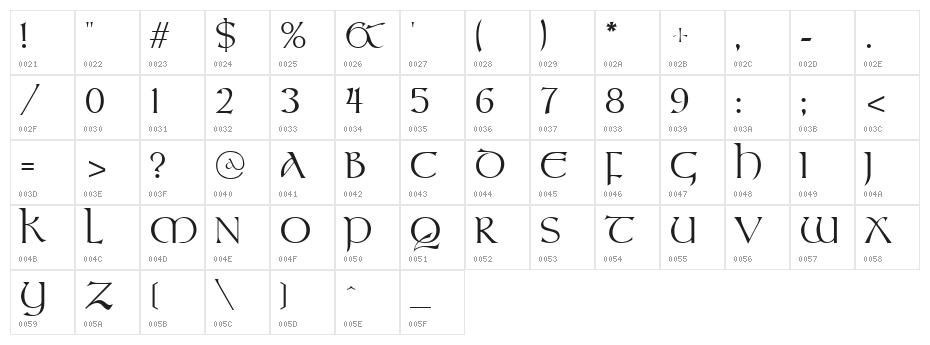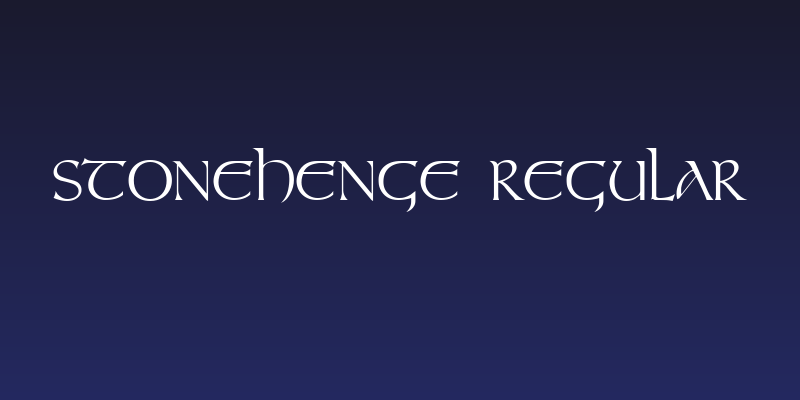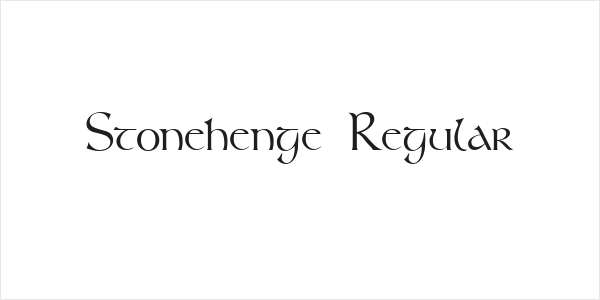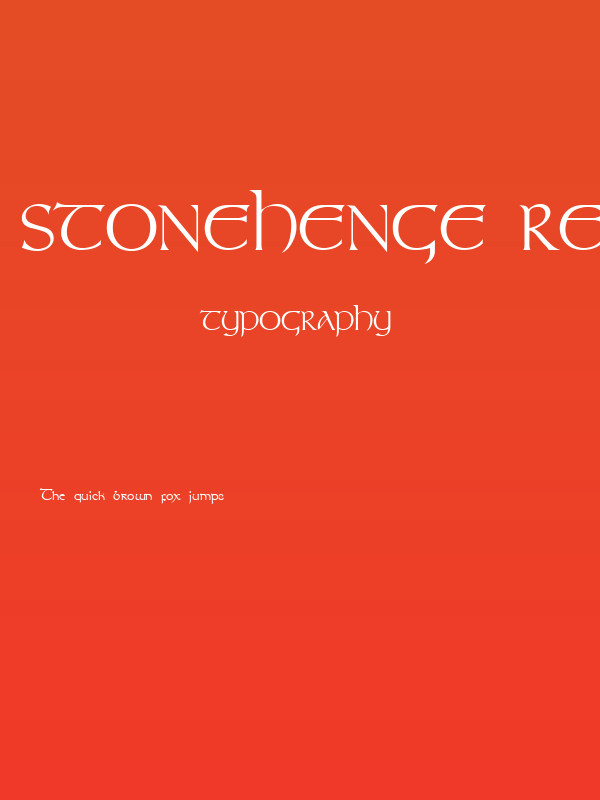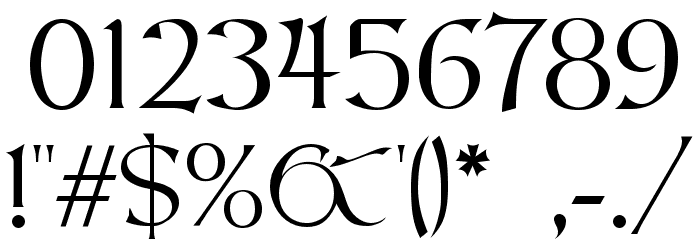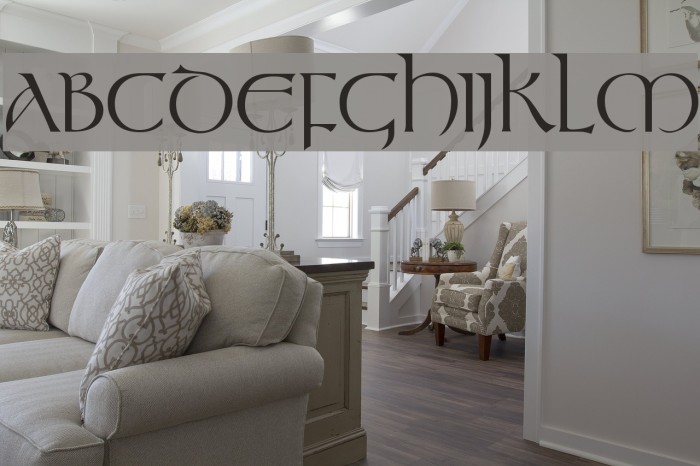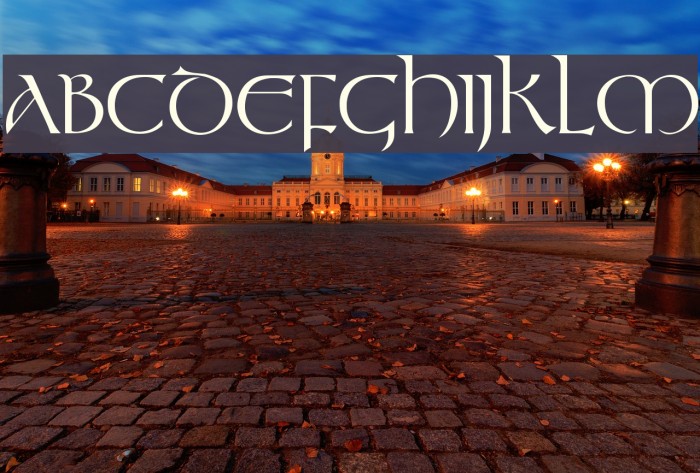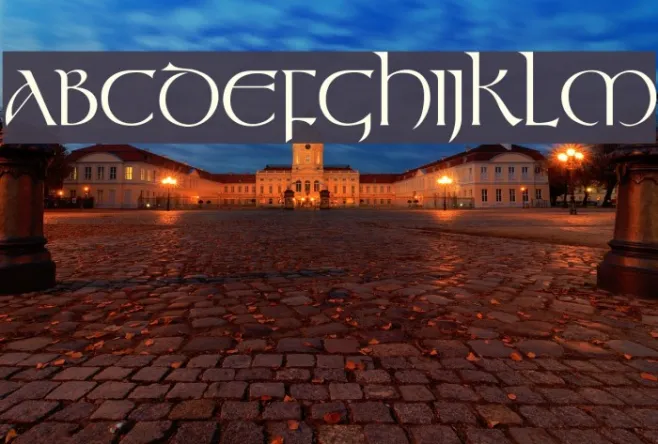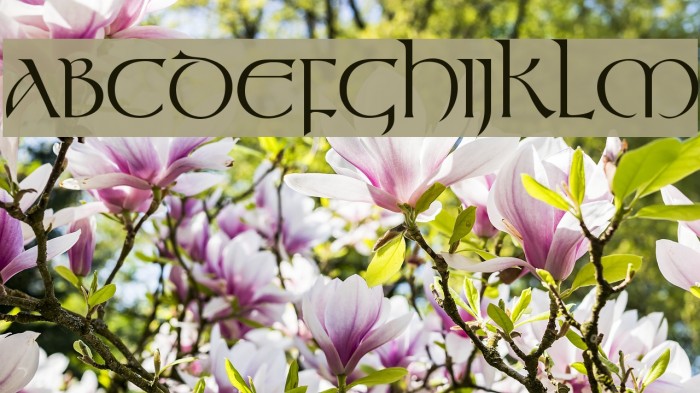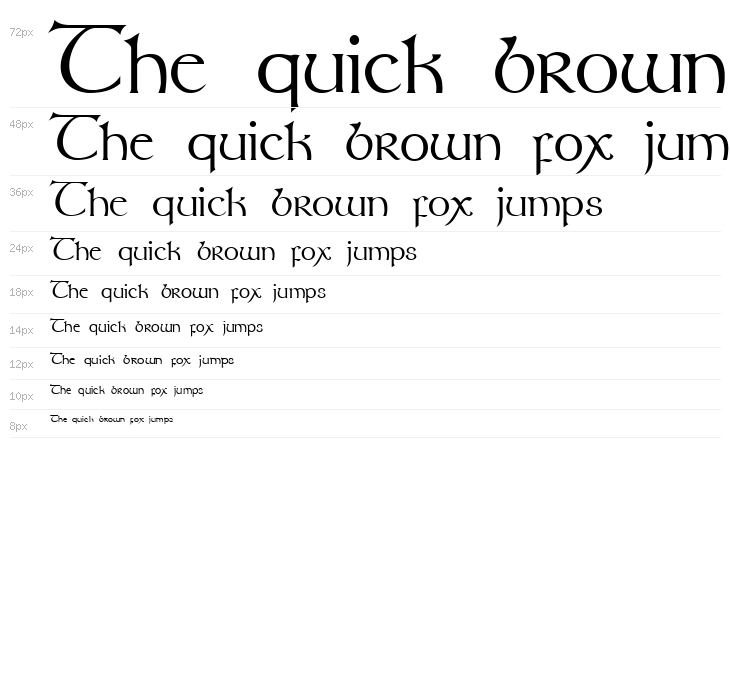
Stonehenge Regular Font
Stonehenge Regular Description
This font features a unique blend of traditional and modern elements, characterized by its sharp, angular serifs and smooth curves. The uppercase letters exhibit a strong presence with their bold strokes and distinctive shapes, while the lowercase letters maintain a harmonious balance with a slightly more subdued appearance. The numerals are consistent with the overall style, offering a clear and legible design. Special characters are crafted with attention to detail, enhancing the font's versatility. The overall aesthetic is both elegant and striking, making it suitable for a variety of design applications.